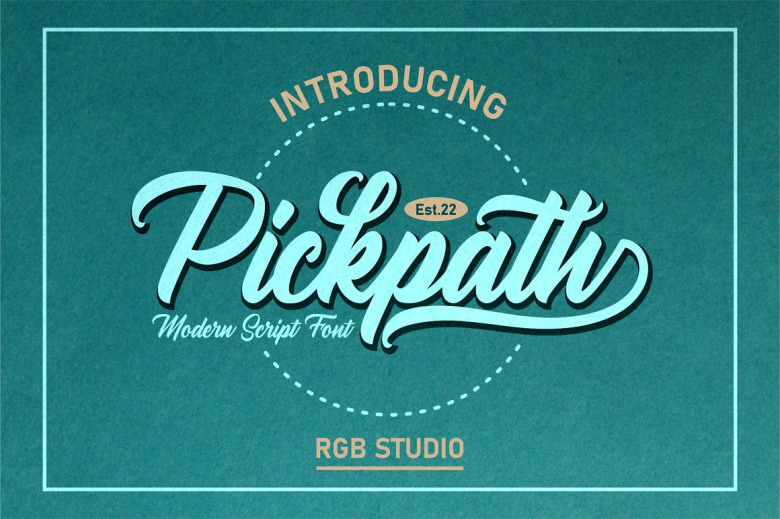
Pickpath Font
Pickpath is a beautiful and bold handwritten typeface that was carefully created for your headlines, logotype, and projects. This font was created to give off a strong, edgy vibe and it can certainly breathe tons of playful n feels into your projects.
Pickpath Bold Script Font